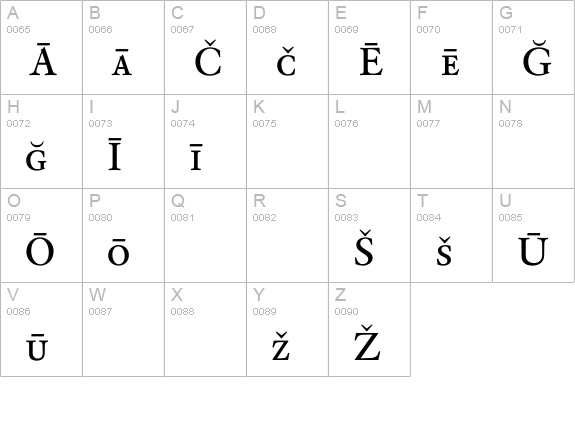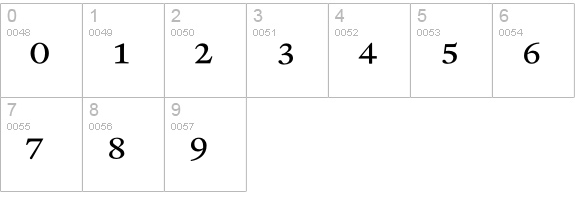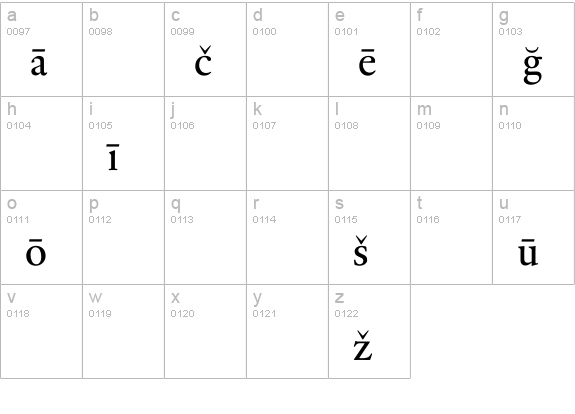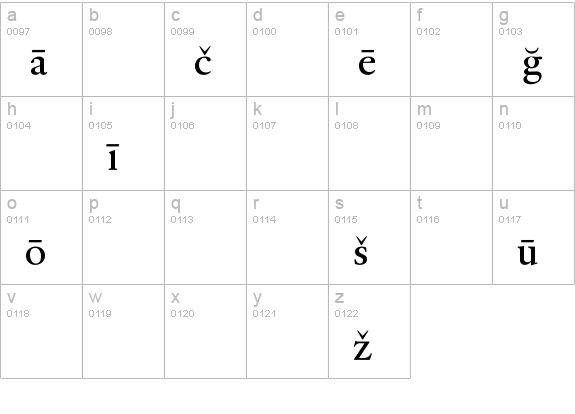
RenardNo2-RomanPi is a remarkable font that effortlessly blends classic elegance with a modern twist. Its clean lines and sophisticated curves create a timeless appeal that is perfect for a wide range of design projects. Whether you are working on a logo, branding, editorial design, or digital artwork, RenardNo2-RomanPi will elevate your creations to new heights. This font's versatility is evident in its ability to adapt to various design styles and contexts. Its crisp and legible letterforms make it ideal for both headlines and body text, ensuring clear communication and easy readability. Each character is meticulously crafted, resulting in a harmonious balance between simplicity and intricacy. One of the standout features of RenardNo2-RomanPi is its extensive character set, which includes multilingual support for a wide range of languages. This ensures that you can confidently use this font for projects with international audiences, without compromising on typographic consistency. What truly sets RenardNo2-RomanPi apart is its availability as a free download at FontsMarket.com. This means that you can enjoy the beauty and functionality of this font without breaking the bank. Whether you are a professional designer or an aspiring creative, this free font is a valuable addition to your typographic toolbox. In conclusion, RenardNo2-RomanPi is a visually stunning font that combines classic elegance with modern aesthetics. Its versatility, extensive character set, and the fact that it is freely available for download at FontsMarket.com, make it an excellent choice for any design project. Elevate your creations with RenardNo2-RomanPi and let its timeless appeal captivate your audience.